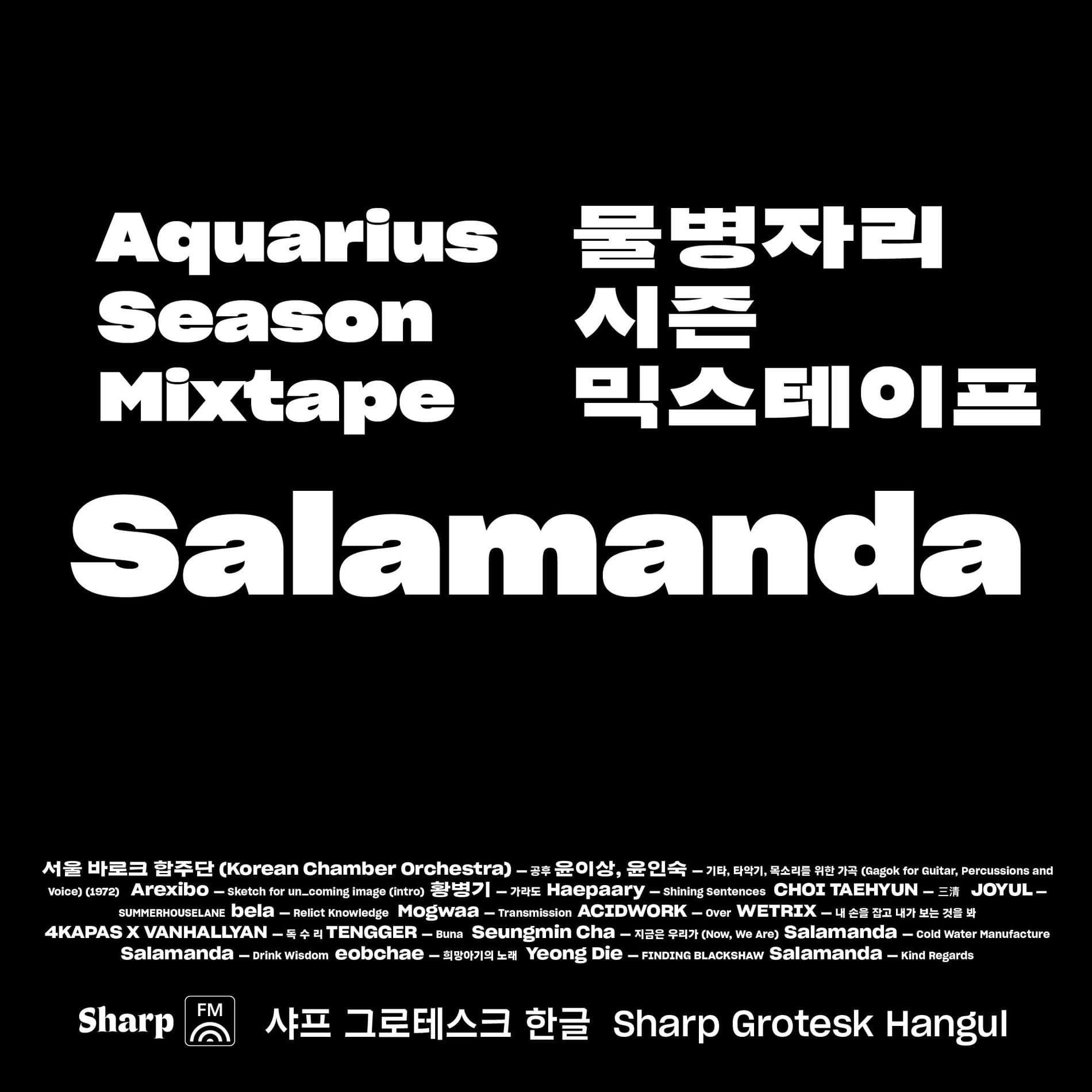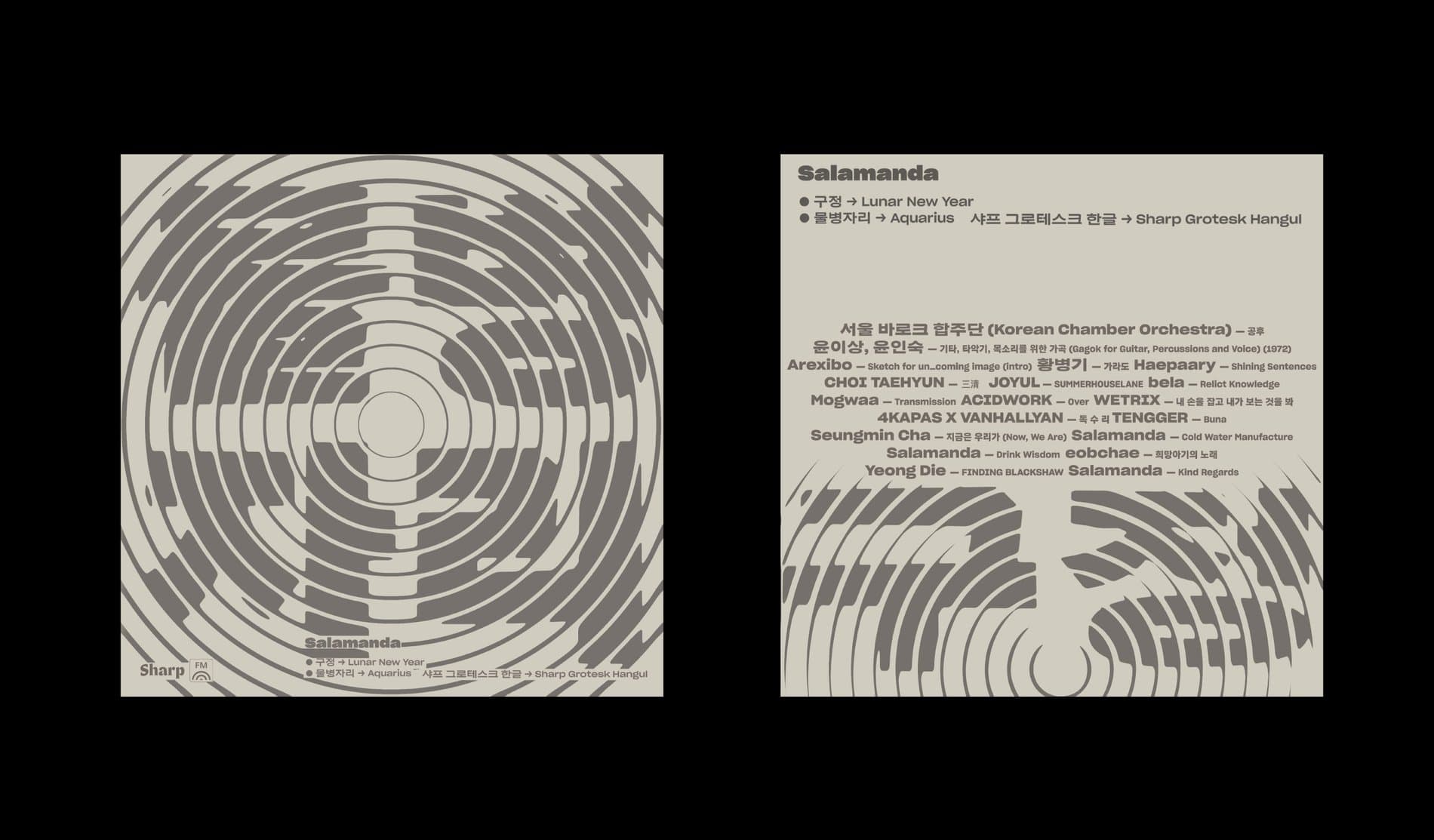
Sharp FM 004: Salamanda for Sharp Grotesk Korean
We celebrate the tail end of the Lunar New Year and give a shoutout to our Aquarians with a new Sharp FM release, our fourth, courtesy of 4th-world experimental duo Salamanda. Last month, our first mix of 2023 by S&M reset all expectations with a cold and cinematic march up the mountain and through the parting clouds. Salamanda take the baton and leap from the mountaintop with sounds that fearlessly free fall, float, and fly through pop, ambient, industrial and classical. It's a steady montage of UFOs that float on rather than zoom by, giving the listener time to take their measure. The Seoul-based duo explore new material here and put together something distinct within their own body of work. This dovetails with the qualities of Aquarian air: radical, considered, and surprising.
Salamanda
Within the past few years, Uman Therma (Sala) and Yetsuby (Manda) have carved out a unique niche for themselves. Their steady workmanlike output since 2018 has resulted in an expanding aural world that feels joyous, psychedelic, and whimsical. As DJs, the Korean duo are beloved in the Seoul club scene for their sets, which veer from visceral to heady; as producers, they love to create imagined worlds with their colorful, dreamy and organic palette of sounds. The two describe their music as “leftfield ambient" and as this mix shows, they believe that every sound has its own beauty.
“This is the first mix we ever recorded with music by Korean artists only. Though the idea of making this mix felt challenging at first, we had fun weaving those different kinds of music into an hour long story." The relatively brief journey from the atonal digital burbling of Choi Taehyun's "三清" to "소​년​이​여", an open-hearted 90s R&B throwback, shouldn't work, but these songs play an alchemical game of telephone, and the final message---better felt than understood---becomes something more than its parts. Uman and Yetsuby are characteristically modest in saying, "We think it turned out to be a nice little recording that shows you a glimpse of a broader music scene in Korea."
Speaking of glimpses, we took this opportunity to share a sneak peak of Sharp Grotesk Hangul, which is just one localization in the forthcoming release of Sharp Grotesk Global. We really love seeing the Latin and Hangul versions together. The alternate track list below reminds us of a poster for a film that might have been advertised in the neon cityscape of Blade Runner:
Alternate track list for Mix 004, highlighting the paired usage of Sharp Grotesk Latin and Hangul.
In conversations with our DJ collaborators, we've gently floated the idea that these mixes exist as halves of a whole. We encourage you to listen back; you'll find that so far, each release is subtly composed this way. In closing, Salamanda hint at this diptych approach without really addressing it: "Some highlights of this mix would be the connection between the old and new, where the traditional sounds meet the modern electronic sound waves, and music from our talented friends that we admire. We hope this mix helps you start your new year fresh and with spirits full of good energy!”